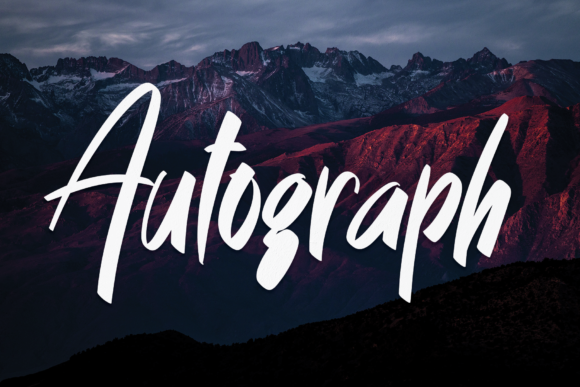
The Autograph Font: A Sweet and Nostalgic Handwritten Delight
Ah, the elusive perfect font. You know, that one typeface that makes your design project go from meh to mesmerizing. I’ve been there, done that, and got the t-shirt (which, coincidentally, was designed with a fabulous font). But today, I want to share with you a gem that has become a staple in my design toolkit: the Autograph Font. This sweet and nostalgic handwritten font has a romantic style with a modern vibe that can transform any creation into a true piece of art!
My Love Affair with Autograph
I recall working on a project for a client who wanted a vintage-inspired wedding invitation. The brief was simple: elegant, personal, and with a touch of whimsy. As I scrolled through my font library, Autograph caught my eye. Its flowing, cursive script seemed to whisper, “This is the one.” And, boy, was it right! The client loved it, and I loved how it brought the whole design together.
So, what makes Autograph so special? Let’s dive into the good stuff and, well, a few quirks.
• ✅ Romantic and nostalgic feel that’s perfect for wedding designs, invitations, and more
• ✨ Unique, handwritten style that adds a personal touch to any project
• ✅ Works beautifully with both digital and print designs
• ⚠️ Some letters may require manual kerning for optimal spacing
• ⚠️ Limited availability of stylistic alternates (but what it offers is beautifully crafted)
One of the joys of Autograph is its support for OpenType features. This means you can access a range of glyphs and stylistic alternates to add more personality to your text. For example, you can use:
• Swashes to add a decorative touch to your headings
• Stylistic alternates to vary the look of your text
• Ligatures to create a more fluid, connected script
The Designer Inspiration Behind Autograph
While the true story behind Autograph’s creation might be a mystery, it’s easy to imagine a designer sitting by a vintage typewriter, pouring their heart into crafting a font that captures the essence of nostalgia and romance. Perhaps they drew inspiration from antique letters, vintage advertisements, or handwritten love letters. Whatever the story, Autograph’s beauty and charm are undeniable.
Q: Is Autograph suitable for body text?
A: While Autograph is highly legible, its script style might not be the best choice for long blocks of body text. It’s perfect for headings, titles, and short paragraphs, though!